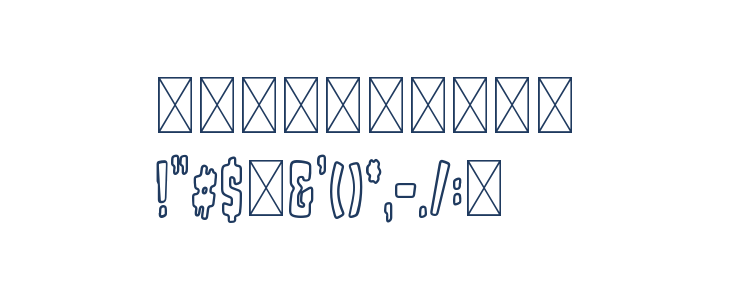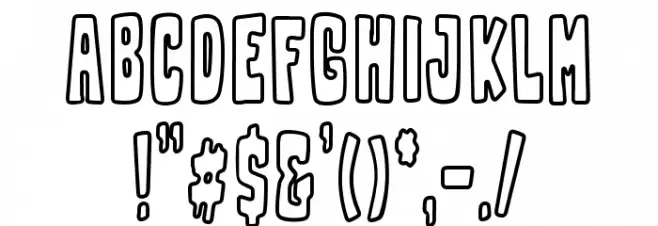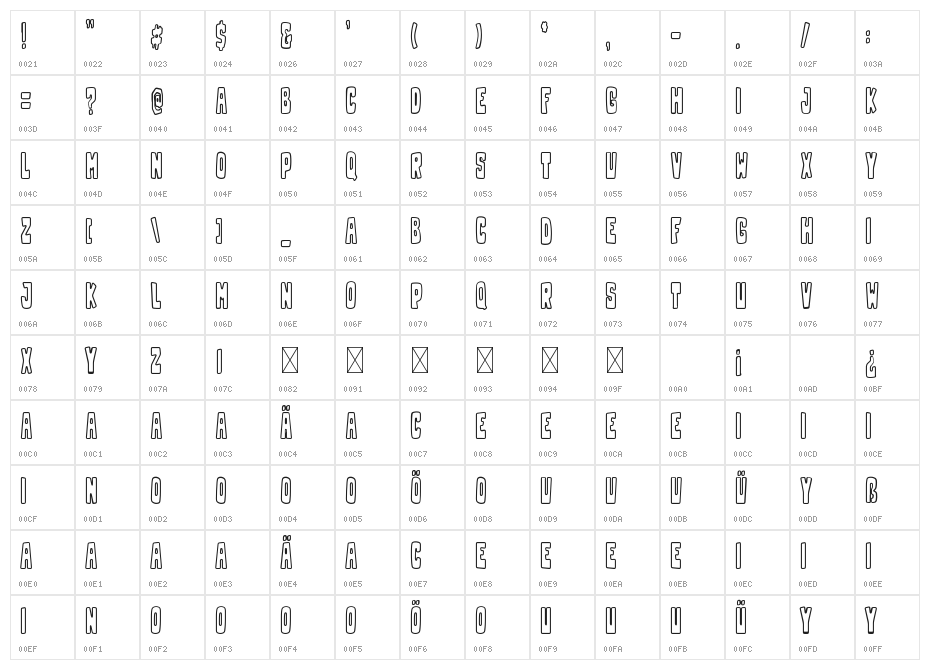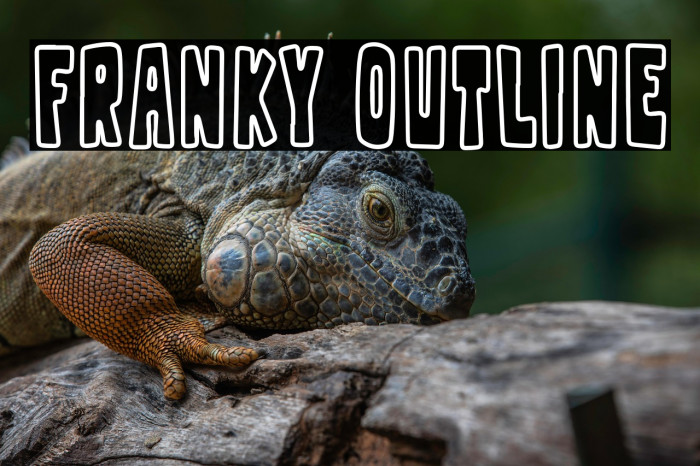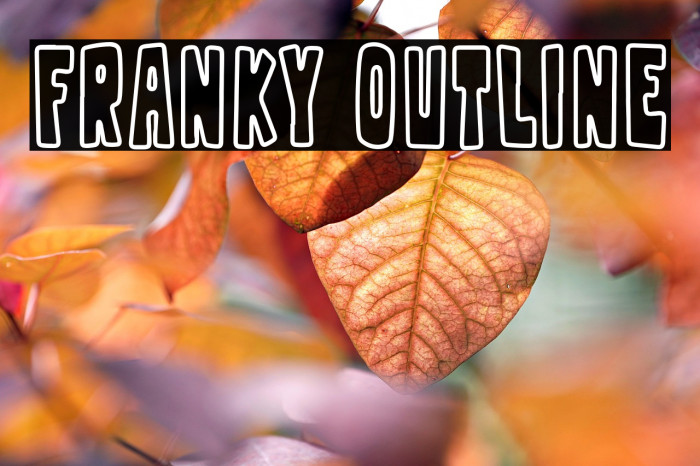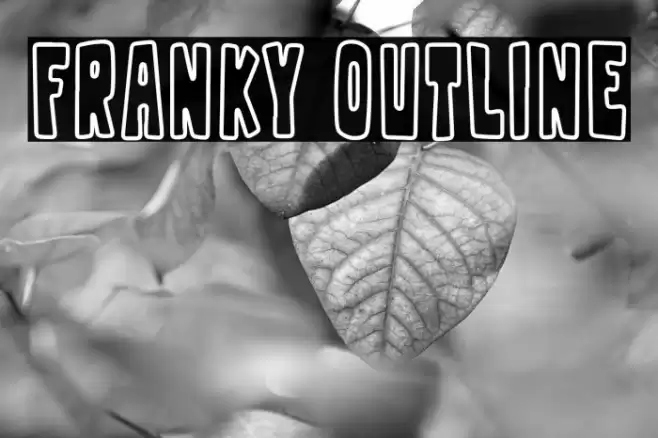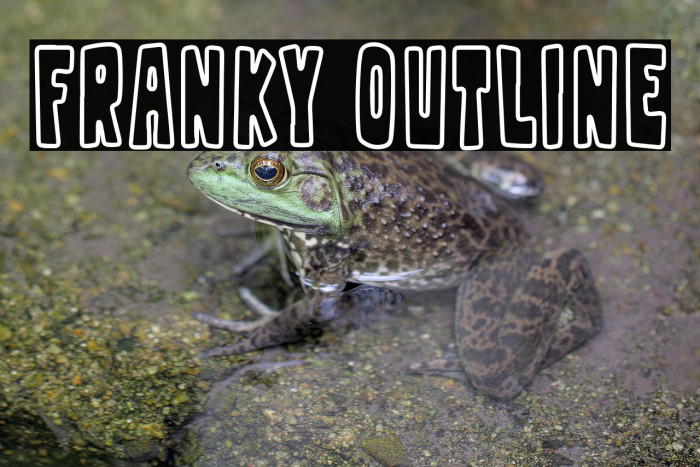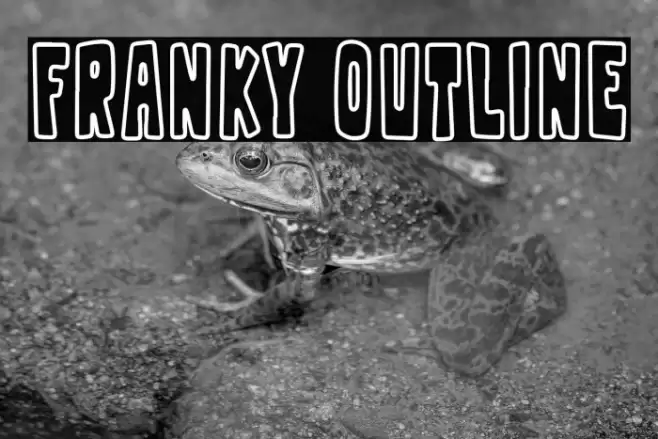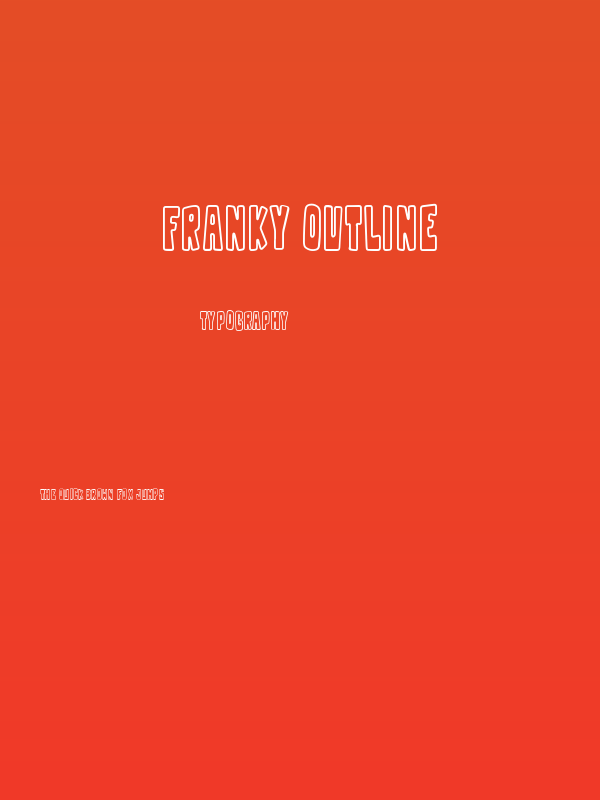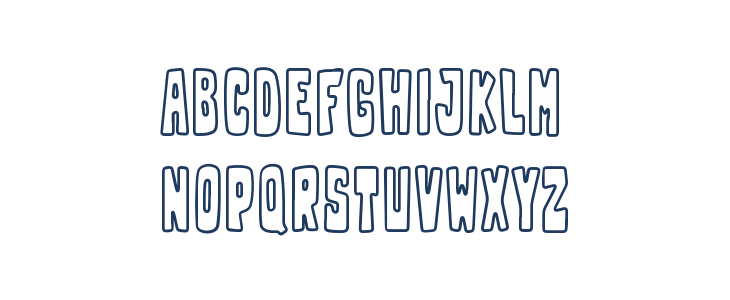
Franky Outline Font
Franky Outline Description
This font features a bold, outlined style that gives each character a strong, impactful presence. The letters are uppercase and have a uniform thickness, creating a cohesive and visually striking appearance. The outline effect adds a layer of depth, making the text stand out prominently. The characters are well-spaced, ensuring readability while maintaining a playful and dynamic aesthetic. This font is ideal for projects that require a bold statement, such as posters, headlines, or branding materials. Its unique style can add a touch of creativity and flair to any design.
| Proposed Projects | Ideal for posters, headlines, branding, and creative design projects. |